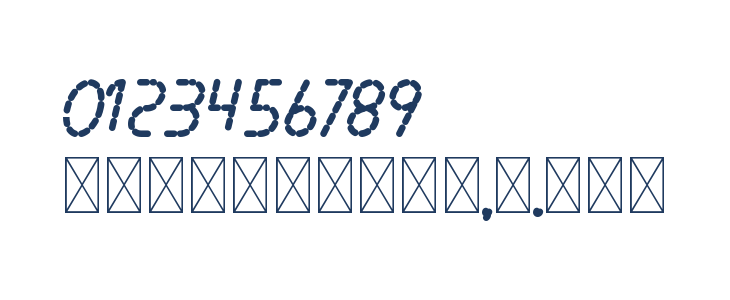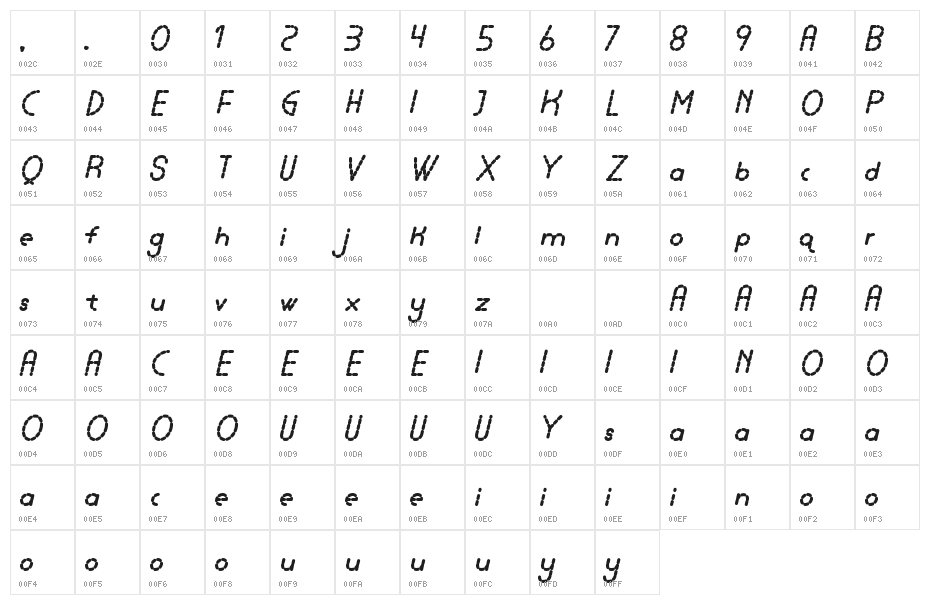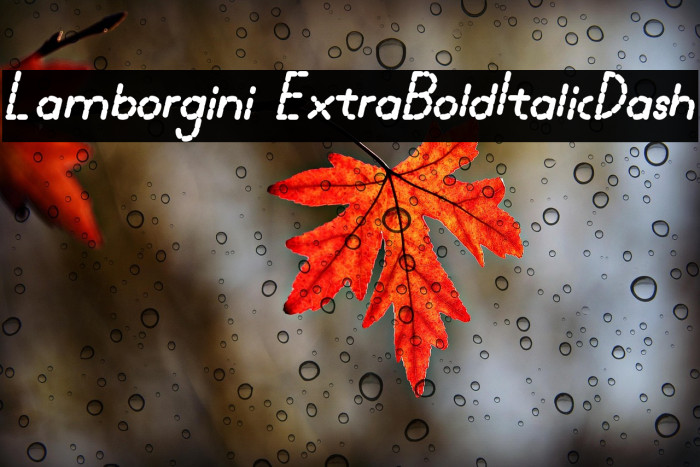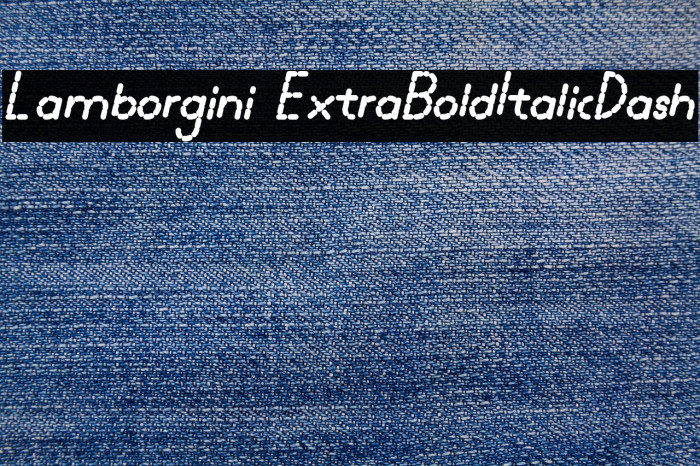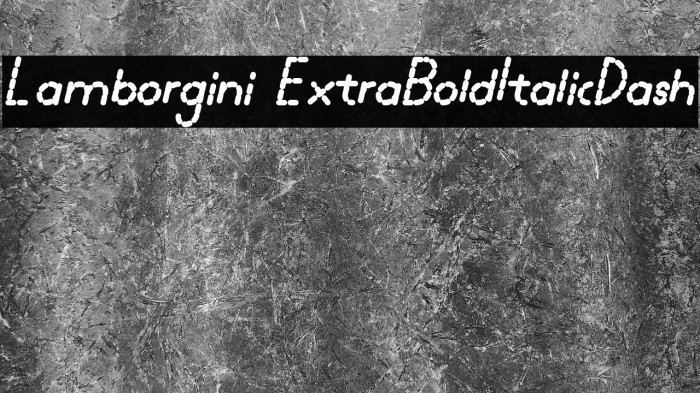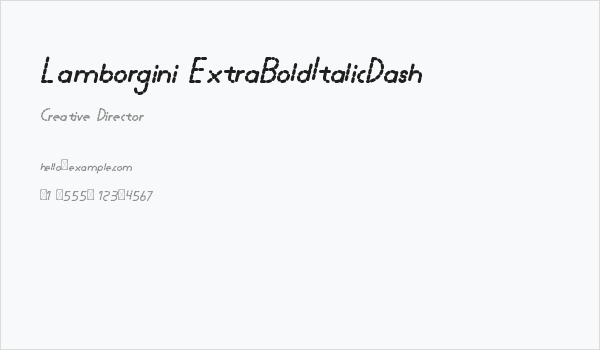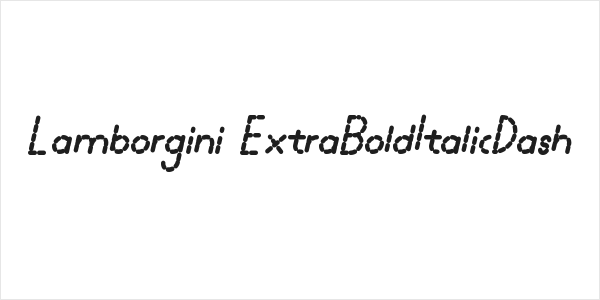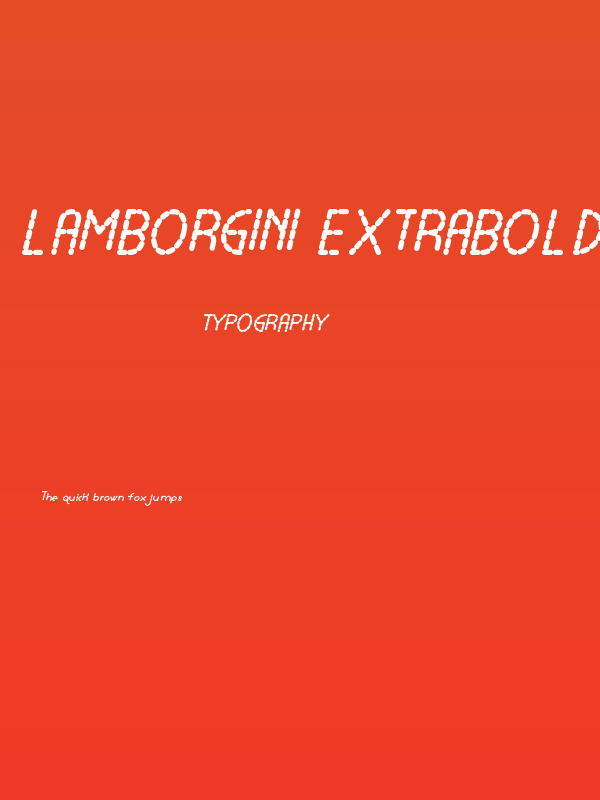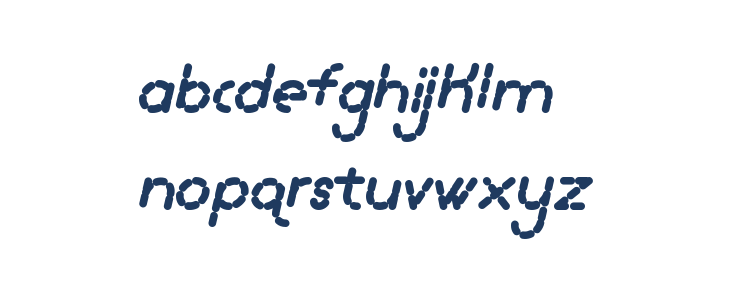
Lamborgini ExtraBoldItalicDash Font
Lamborgini ExtraBoldItalicDash Description
This font features a unique, dotted design that gives it a playful and modern appearance. Each character is composed of a series of bold, rounded dots that form the shape of the letter or number. The font is italicized, adding a sense of movement and dynamism. The uppercase and lowercase letters maintain a consistent style, with the dots creating a uniform thickness throughout. Numbers and special characters follow the same design principles, ensuring a cohesive look across all elements. This font's distinctive style makes it stand out, offering a creative twist on traditional typography.